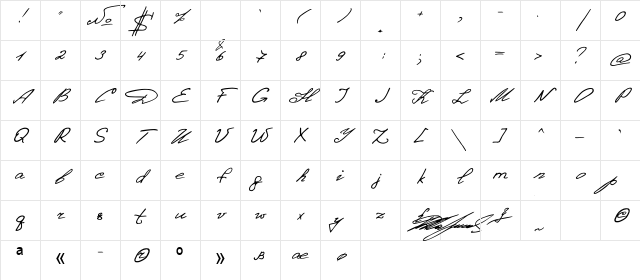
Denistina Regular Free Font
Denistina Regular
Design Context for Denistina
Denistina is a composed and adaptable typeface that performs quietly and consistently across a wide range of design contexts.
Pro Tip: Use Denistina in both headline and body roles to test its range before committing to a single application.